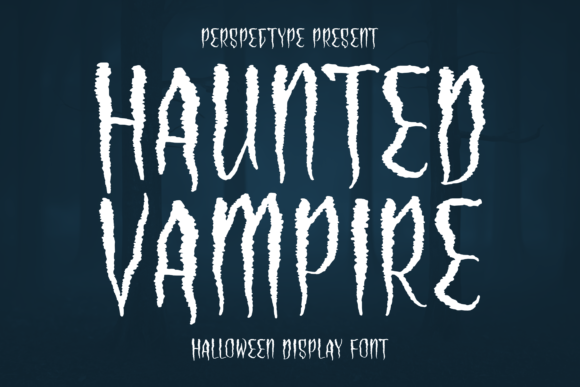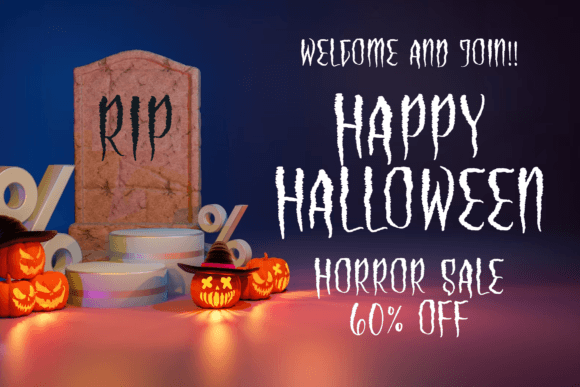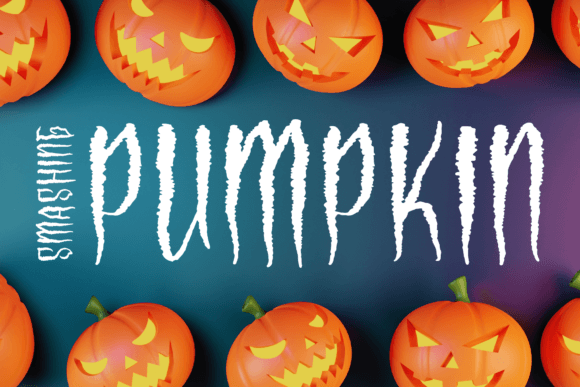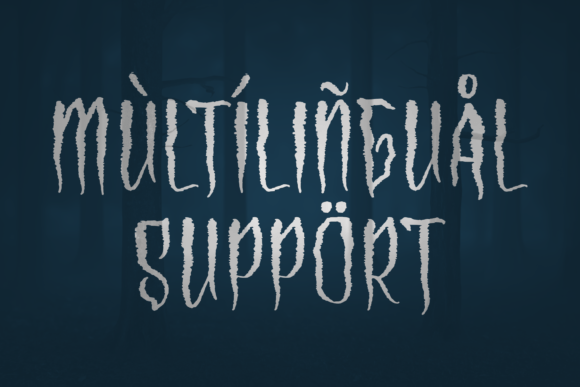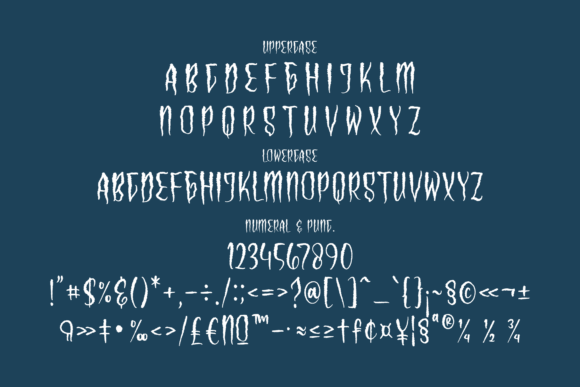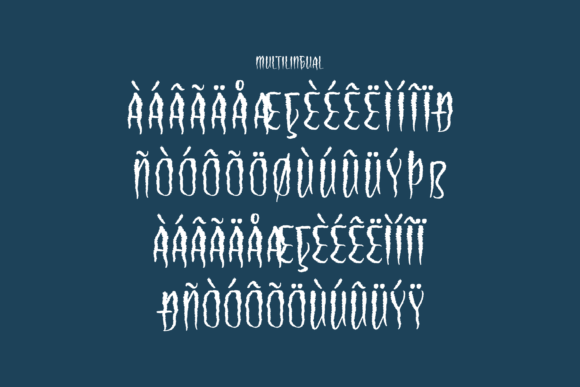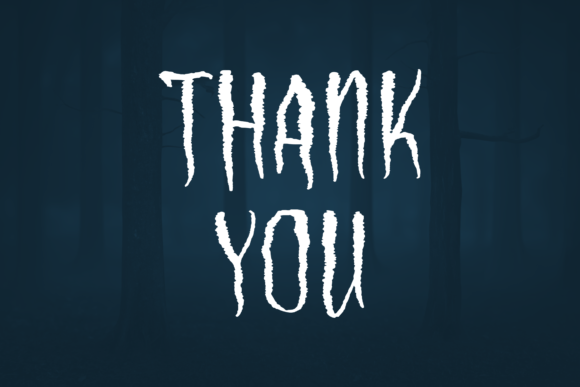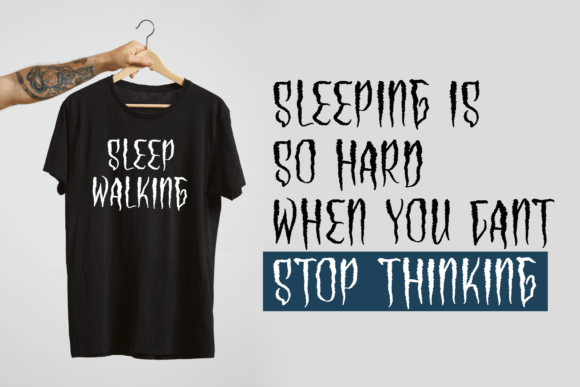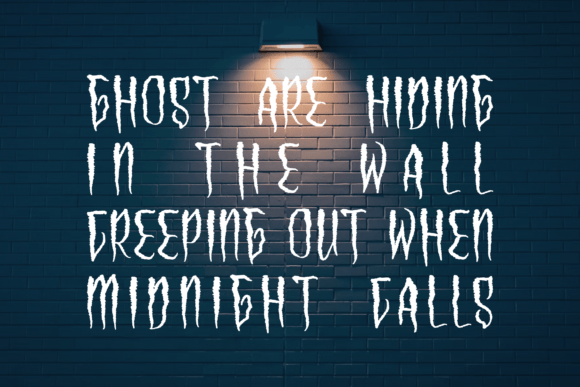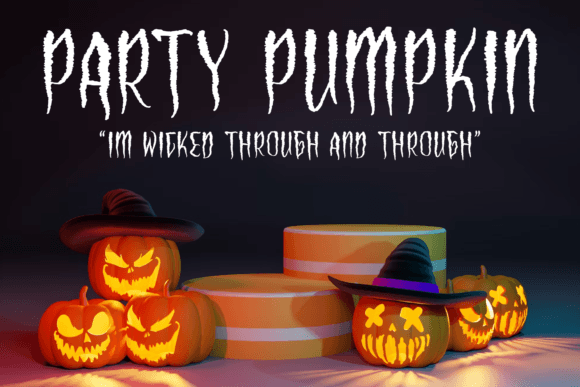
Haunted Vampire Font
Haunted Vampire Font Download – Halloween Handwritten Script
The Haunted Vampire Font download is a creative handwritten typeface with a spooky yet elegant flair, making it a perfect choice for Halloween and other themed projects. With its playful curves and slightly eerie style, this font balances beauty and mystery, ensuring your designs capture attention instantly. Whether for digital graphics, print materials, or product branding, Haunted Vampire is versatile enough to elevate any project with a festive and haunting charm.
A Spooky Yet Stylish Handwritten Look
The Haunted Vampire Font download combines handwritten elegance with a mysterious Halloween-inspired vibe. Each letter is crafted with a natural flow, giving your designs both authenticity and personality. Its spooky style makes it especially suitable for October projects, but it is also flexible enough for creative work year-round.
Perfect for Halloween Projects
If you’re preparing seasonal designs, the Haunted Vampire Font download is the perfect companion. It works beautifully for Halloween party invitations, event posters, trick-or-treat bags, t-shirt designs, and spooky greeting cards. Its distinct handwritten style creates the perfect balance of creepy and fun, making your work stand out in festive celebrations.
Versatile Across Creative Uses
Beyond Halloween, this font can be used for a wide range of creative projects. The Haunted Vampire Font download adapts well to branding, mugs, book covers, shopping bags, and product packaging. Its unique appearance adds a dramatic flair, ideal for quotes, social media posts, and decorative elements.
Why Choose Haunted Vampire Font?
There are many fonts with a spooky theme, but the Haunted Vampire Font download stands out thanks to its balance of beauty and eeriness. It captures the spirit of Halloween without being overly decorative, ensuring readability while adding unique flair. Designers who want a font that is festive yet versatile will find Haunted Vampire a perfect match.
Add Spooky Charm to Your Designs
Typography is one of the most powerful ways to set the mood in design. The Haunted Vampire Font download allows you to create designs that feel festive, spooky, and unforgettable. Whether you are creating invitations, branding materials, or seasonal decorations, this font ensures your work communicates both style and seasonal charm.